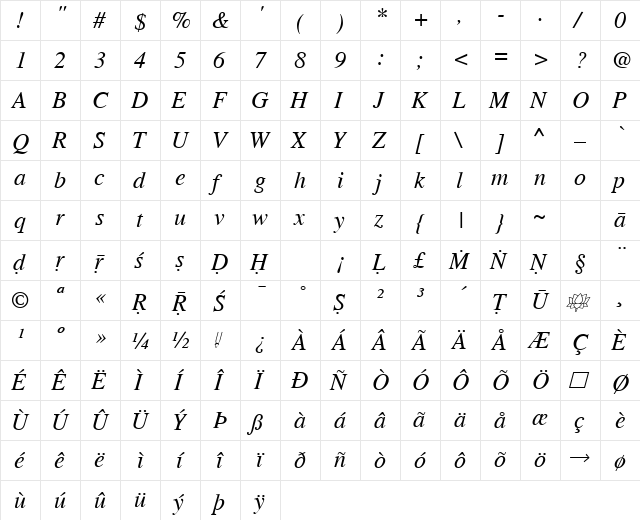
Sanskrit-Times Italic
Design Context for Sanskrit-Times Typeface
Sanskrit-Times is a composed and adaptable typeface that performs quietly and consistently across a wide range of design contexts. The slanted form adds forward momentum and visual energy.